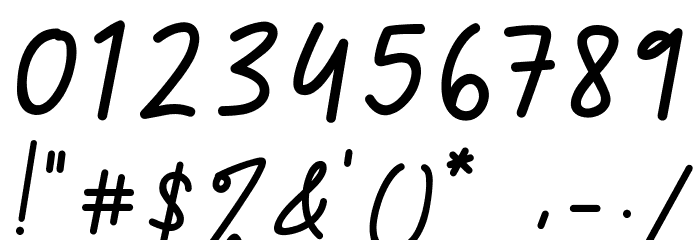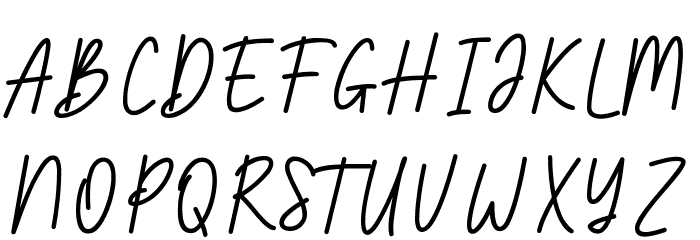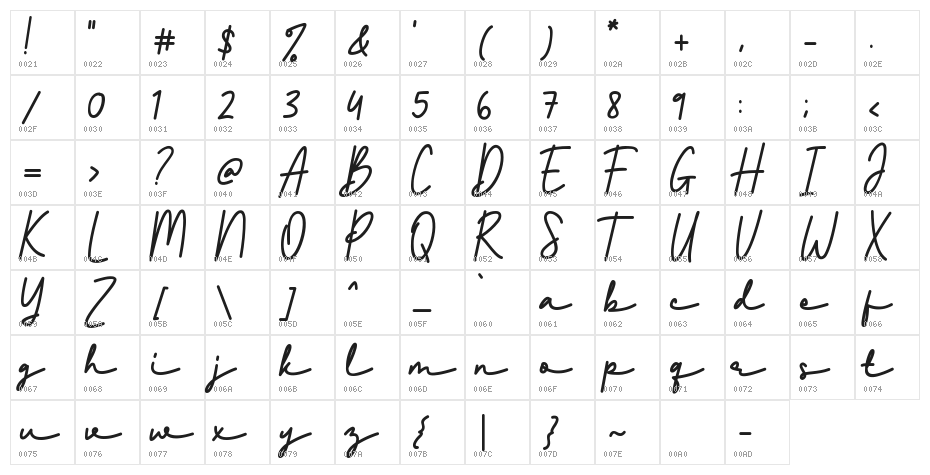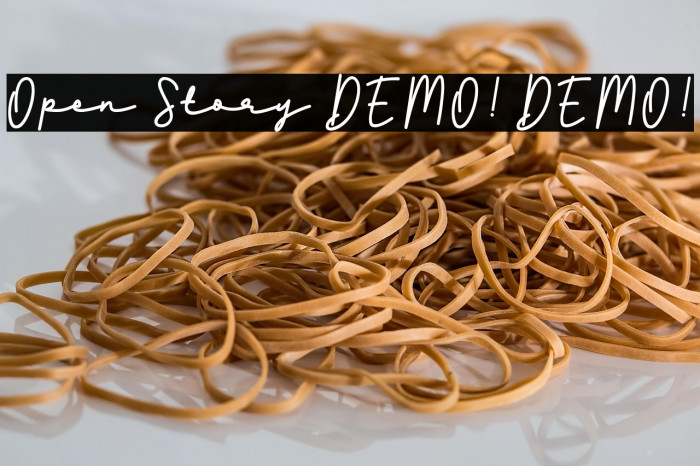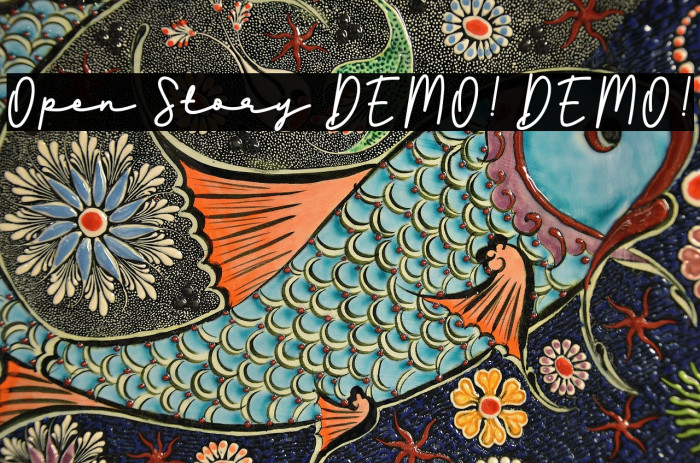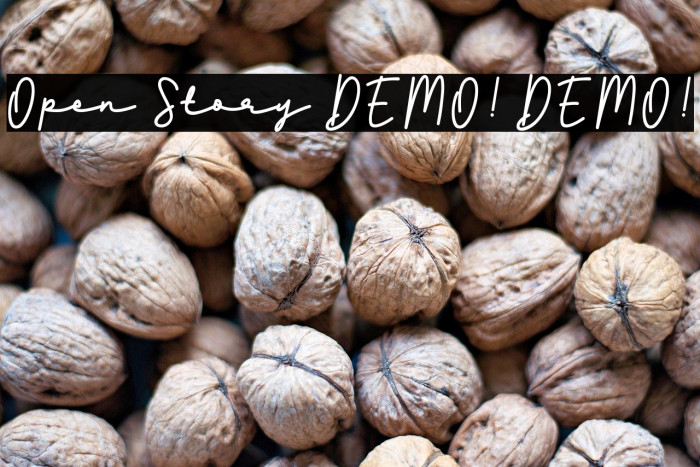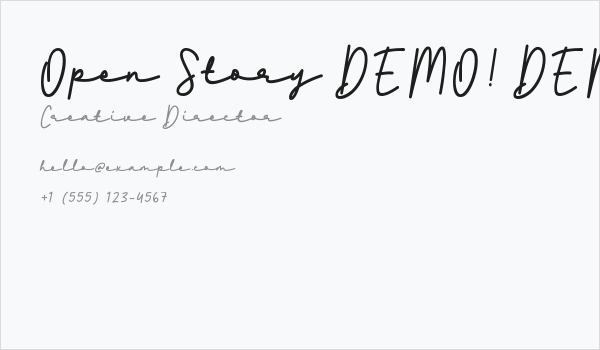
Open Story DEMO! DEMO! Font
Open Story DEMO! DEMO! Description
This font exudes a casual and handwritten style, characterized by its fluid and slightly slanted letterforms. The uppercase letters are tall and narrow, with a playful yet elegant appearance. The lowercase letters maintain a consistent flow, connecting smoothly in a cursive manner. Numerals are bold and rounded, complementing the overall informal aesthetic. Special characters are crafted with the same attention to detail, ensuring a cohesive look across all glyphs. The font's organic feel makes it ideal for projects that require a personal touch, such as invitations, greeting cards, or branding materials that aim to convey warmth and approachability.
A casual, handwritten font with fluid, slightly slanted letterforms and a cohesive, organic feel from Uncategorized fonts.
- Proposed Projects: Ideal for invitations, greeting cards, personal branding, and any project requiring a warm, approachable aesthetic.
- Overall Style: Casual, Organic
- Use Case: Headlines, Logos, Invitations